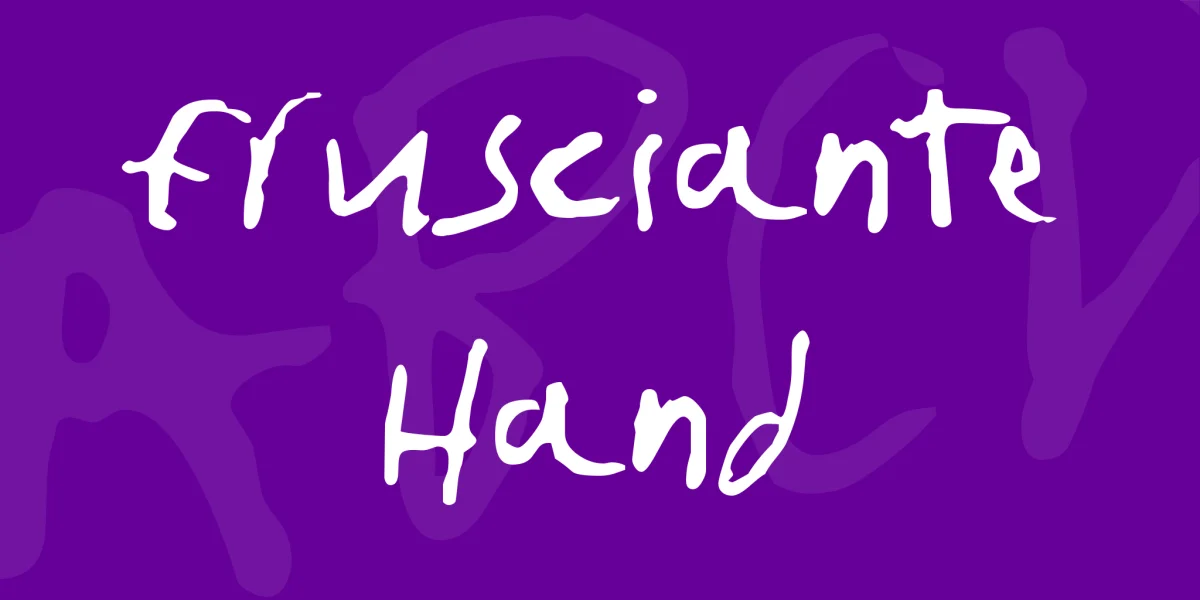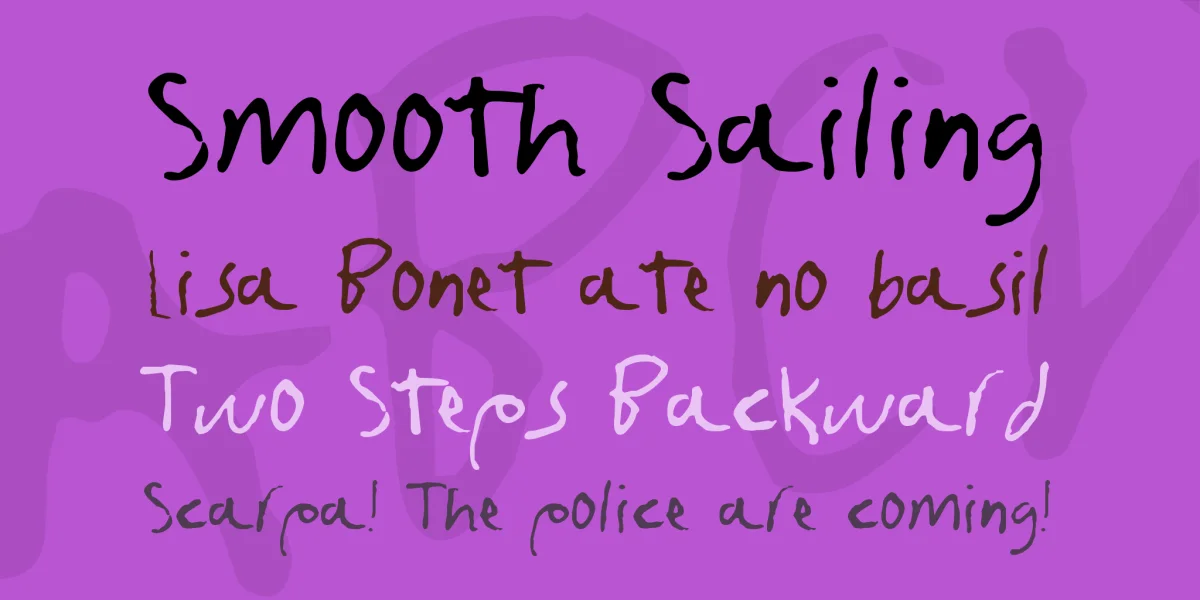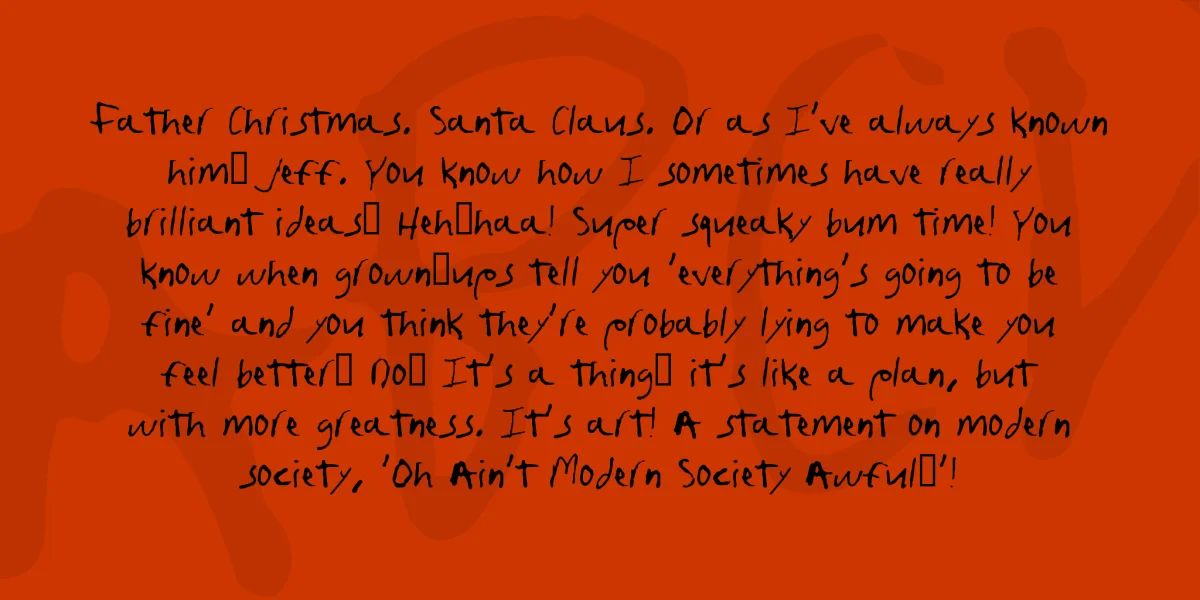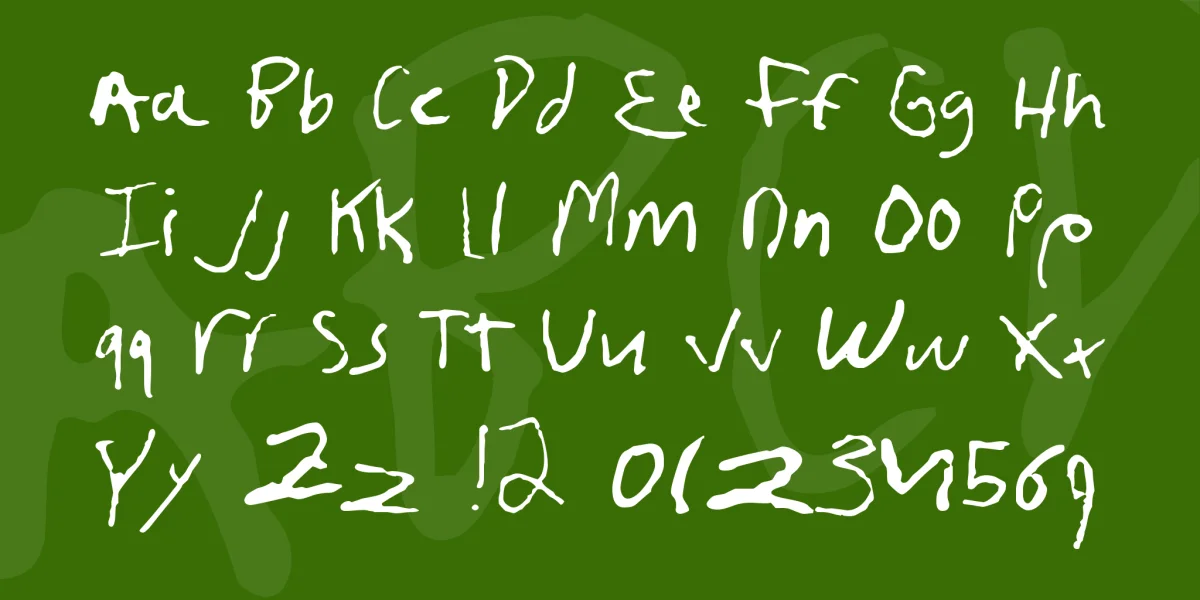
This messy font is the handwriting of John -RHCP- Frusciante. I scanned the characters from lyrics he wrote for his first solo-album: 'Niandra lades and usually just a t-shirt'. Some characters are missing simply because he didn't write them. Check out his great new album: 'To record only water for ten days'.